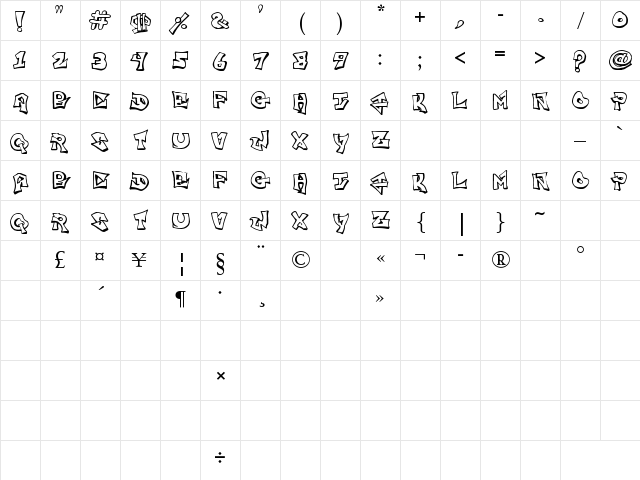
Freight Train Gangsta Regular Free Font
Freight Train Gangsta Regular
Designer: Tom Kolodziejski
Complete Freight Train Gangsta Regular glyph index. Displaying only characters natively supported by Freight Train Gangsta Regular font.
Design Context for Freight Train Gangsta
Freight Train Gangsta is a composed and adaptable typeface that performs quietly and consistently across a wide range of design contexts.